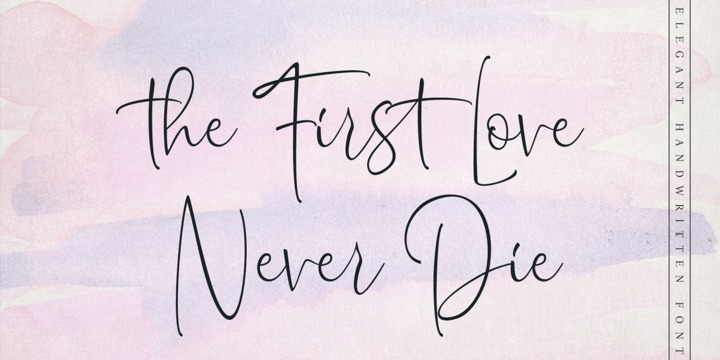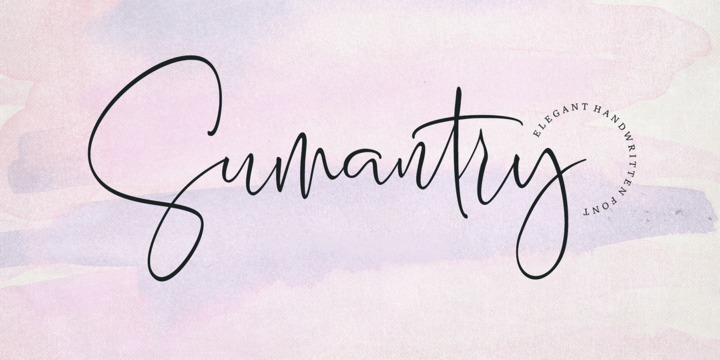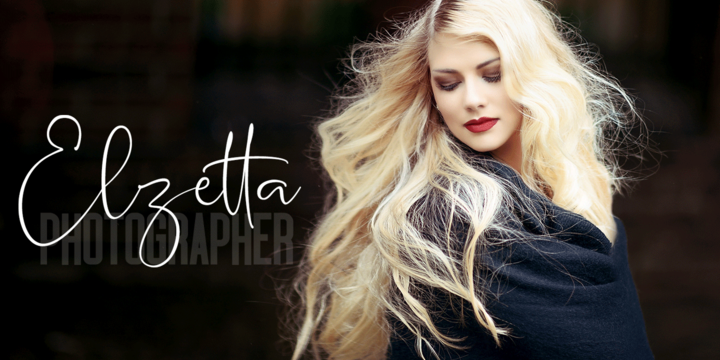
Sumantry Font
Sumantry is the only feminine font script, with a pure handwriting style, and very perfect for invitations, signatures, logo designs, brands, and resources from this font can also be in the title of books and magazines.